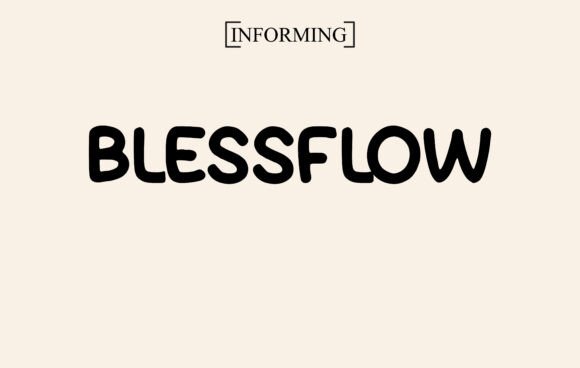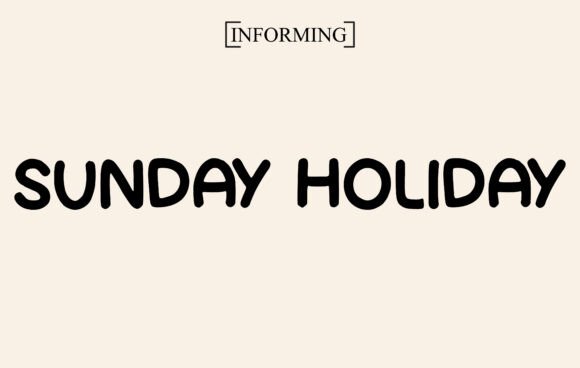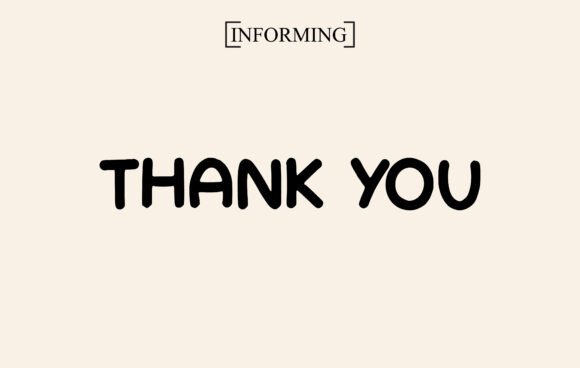
Blessflow Font
About the Blessflow Font
Elevate your designs with Blessflow Font, a font that combines sophistication with readability. This font is designed to be a true favorite and it has the potential to take your creative ideas to the highest level
Blessflow Font Usage Examples